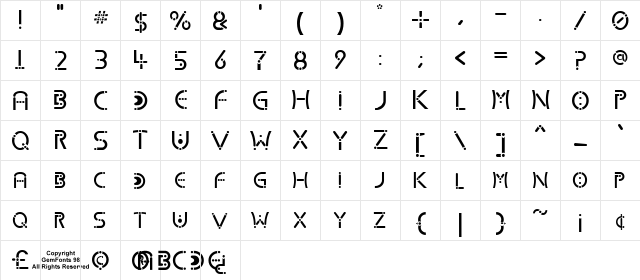
Kharnorric Royal Regular
Design Context for Kharnorric Royal Typeface
Kharnorric Royal takes a measured approach to typography — its balanced proportions and neutral character make it a reliable workhorse for both digital and print work.